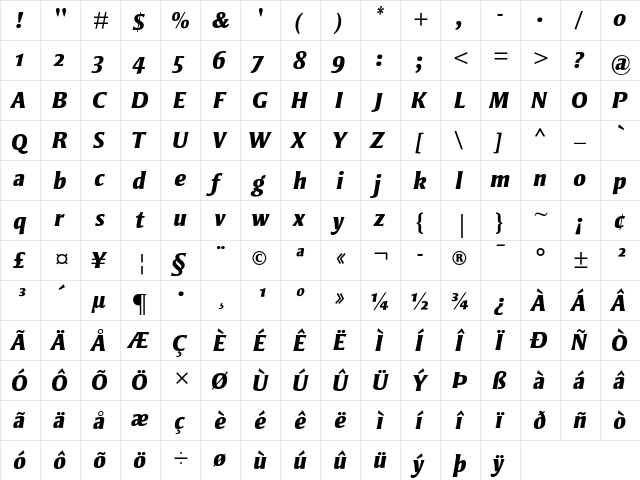
Strayhorn MT Extra Bold Italic OsF Font Preview
Design Context for Strayhorn MT Typeface
Strayhorn MT takes a measured approach to typography — its balanced proportions and neutral character make it a reliable workhorse for both digital and print work. The slanted form adds forward momentum and visual energy. The heavy weight commands attention and anchors typographic hierarchies.
Pro Tip: Try Strayhorn MT for annotation and caption copy alongside an upright companion — the contrast in angle creates a dynamic but ordered typographic system.